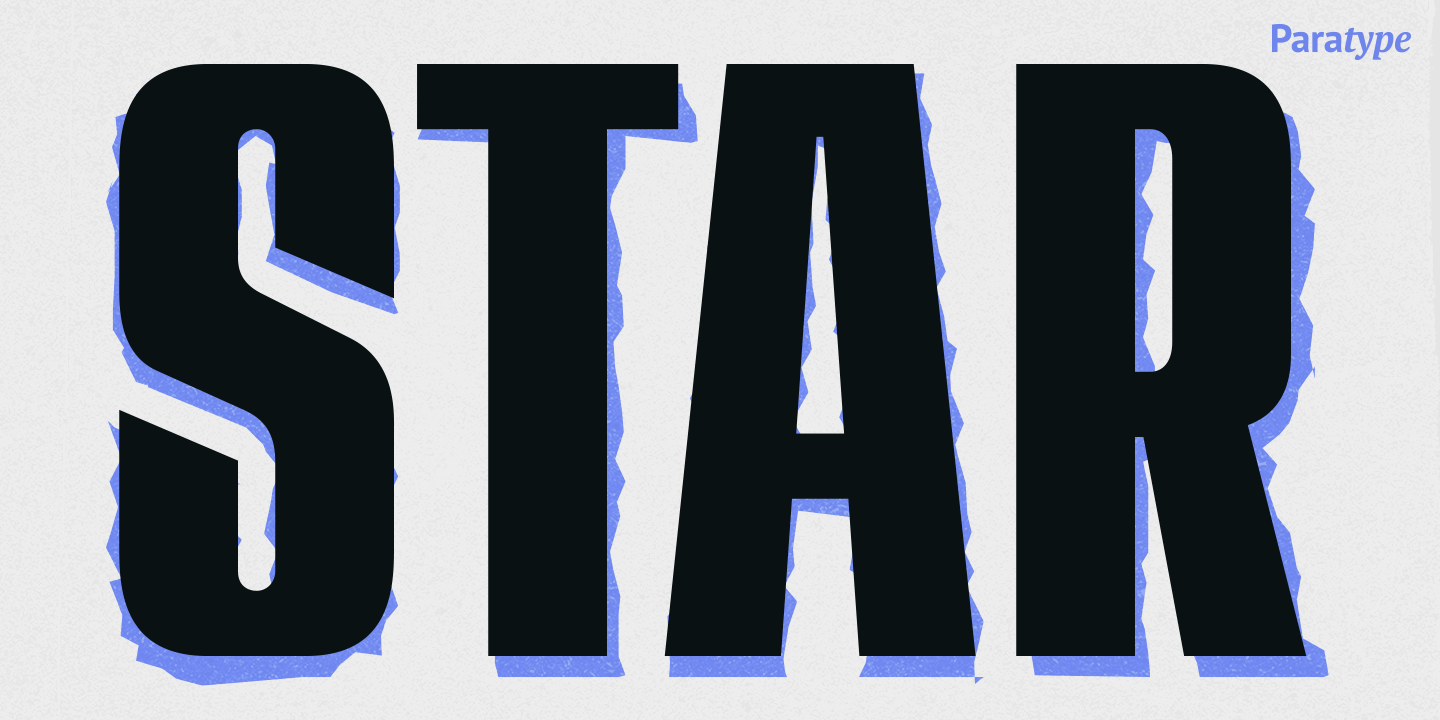
Star Font is perfect for entertainment branding, movie posters, celebrity magazines, award ceremonies, glamorous advertising, show business graphics, red carpet events, and stardom-themed designs.
What makes Star Font exciting is its dazzling character that captures the essence of Hollywood glamour and celebrity culture with sparkling details and luminous appeal. This captivating typeface features brilliant construction, eye-catching elements, and sophisticated shine that evokes the magic of stardom and entertainment industry prestige, making it ideal for projects seeking to communicate fame, success, and spectacular visual impact.
The Star Font family includes Regular, Bold, and Light weights, each maintaining the characteristic brilliance and glamorous appeal that define this distinctive typeface's celebrity personality and entertainment industry sophistication.
Star Font Free Download offers designers access to a typeface that embodies the glittering world of entertainment and celebrity culture. This dazzling font brings authentic Hollywood glamour to contemporary projects, making it essential for entertainment companies, talent agencies, and luxury brands targeting audiences fascinated by stardom and success. The font's brilliant construction and sparkling details ensure maximum visual impact in display applications while its glamorous character creates instant recognition and aspirational appeal. Whether designing celebrity endorsement campaigns, entertainment award materials, or luxury lifestyle branding, this font delivers the star quality and prestigious appearance that captivates audiences seeking extraordinary experiences. Its entertainment heritage and luminous aesthetics make it indispensable for projects celebrating achievement, recognition, and the enduring appeal of celebrity culture, ensuring communications shine with the brilliance and sophistication that audiences associate with true stardom.